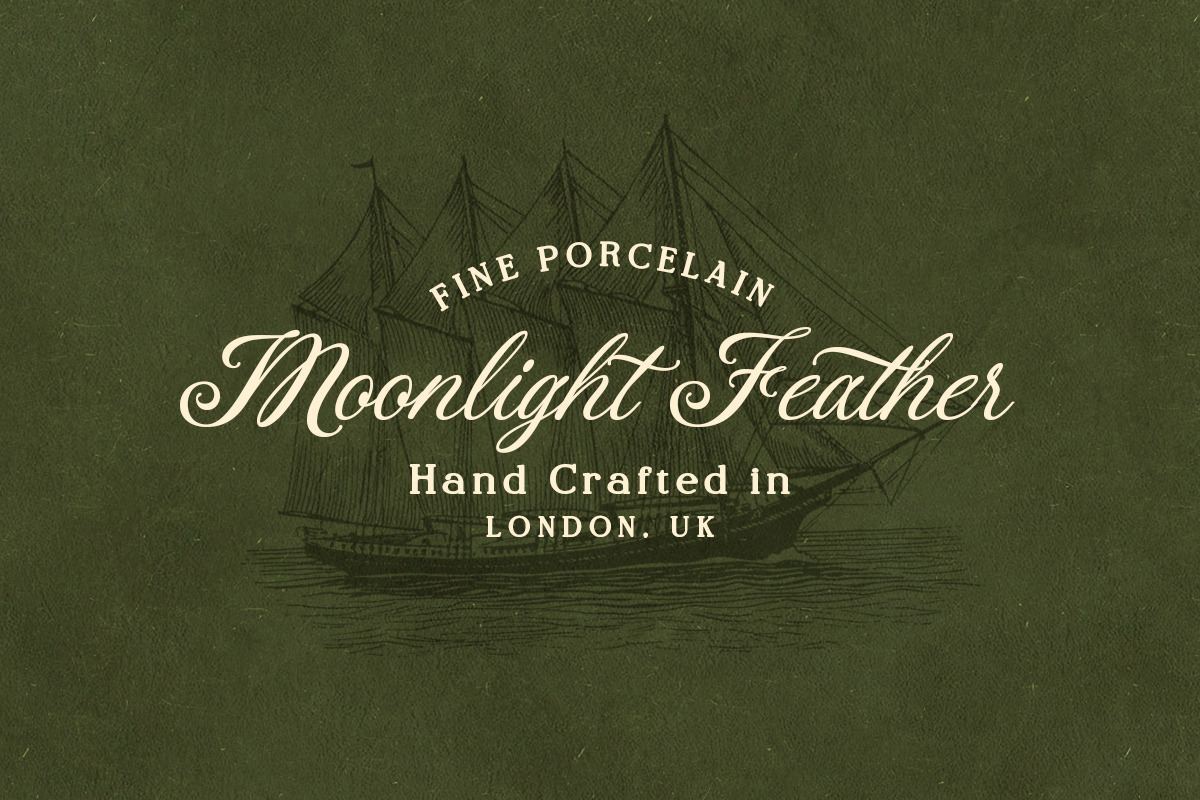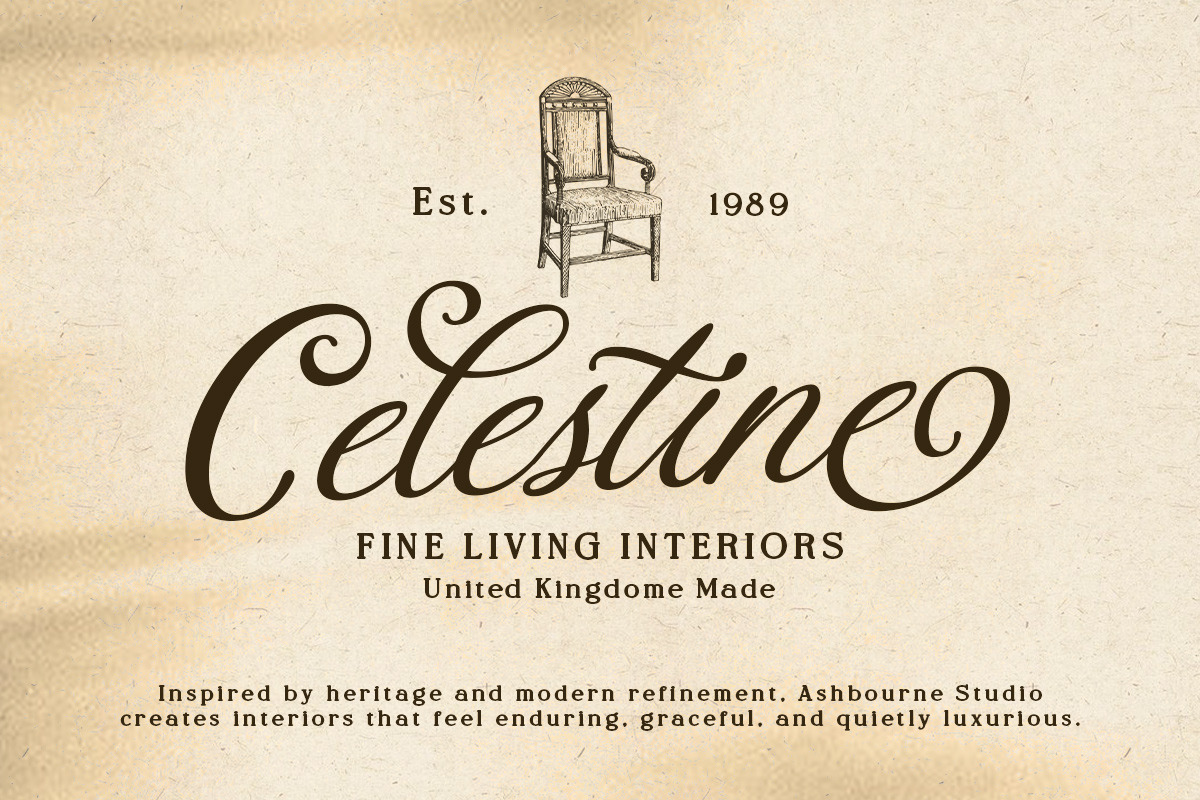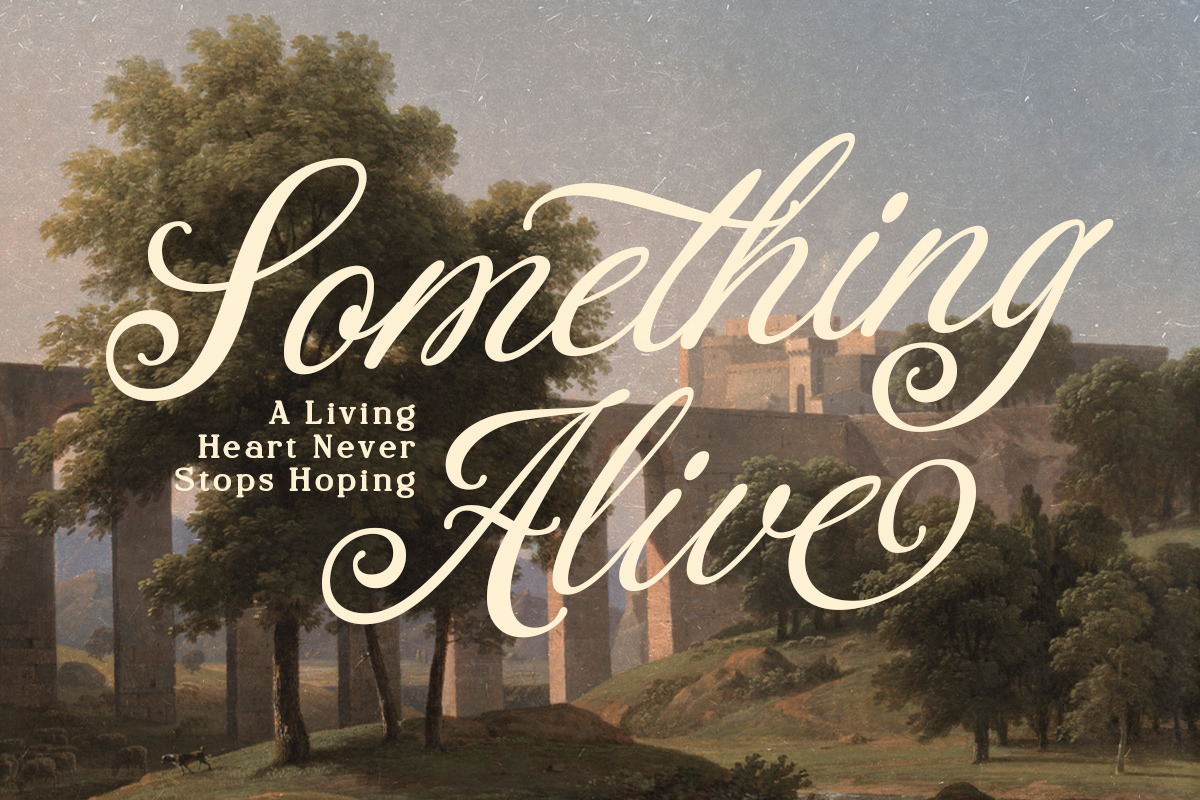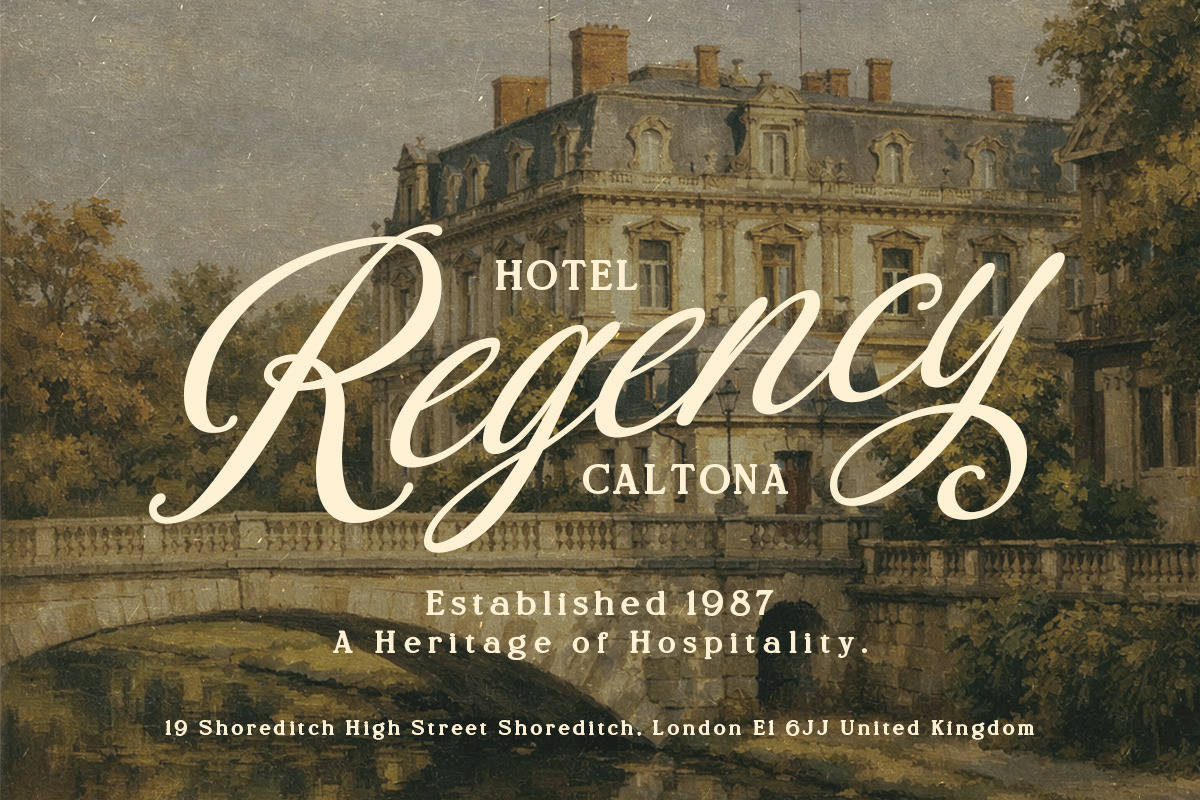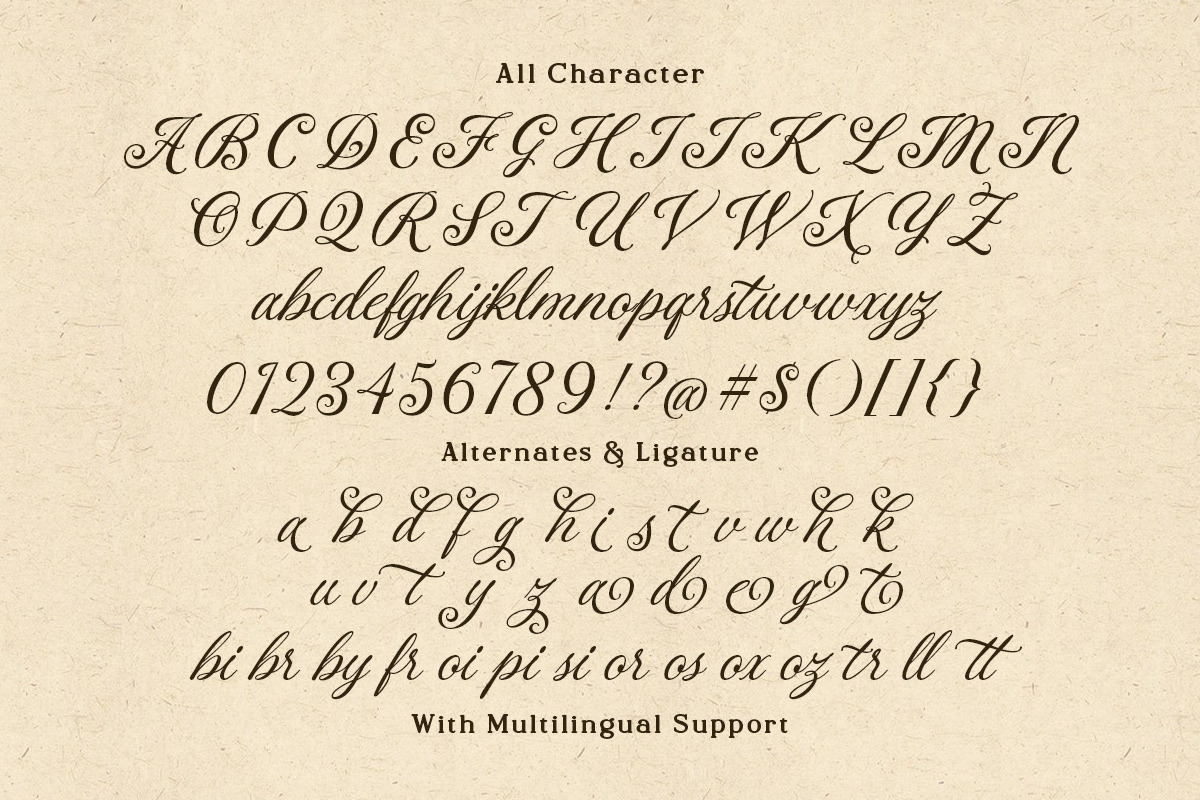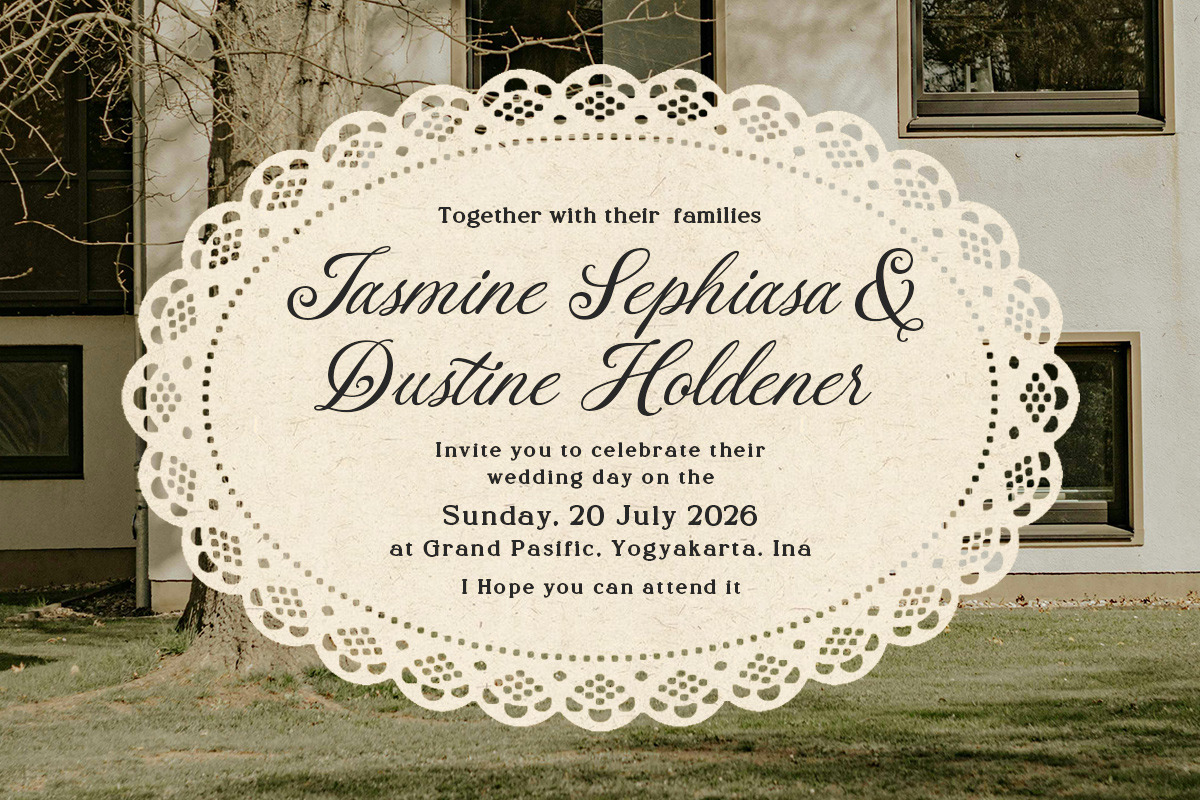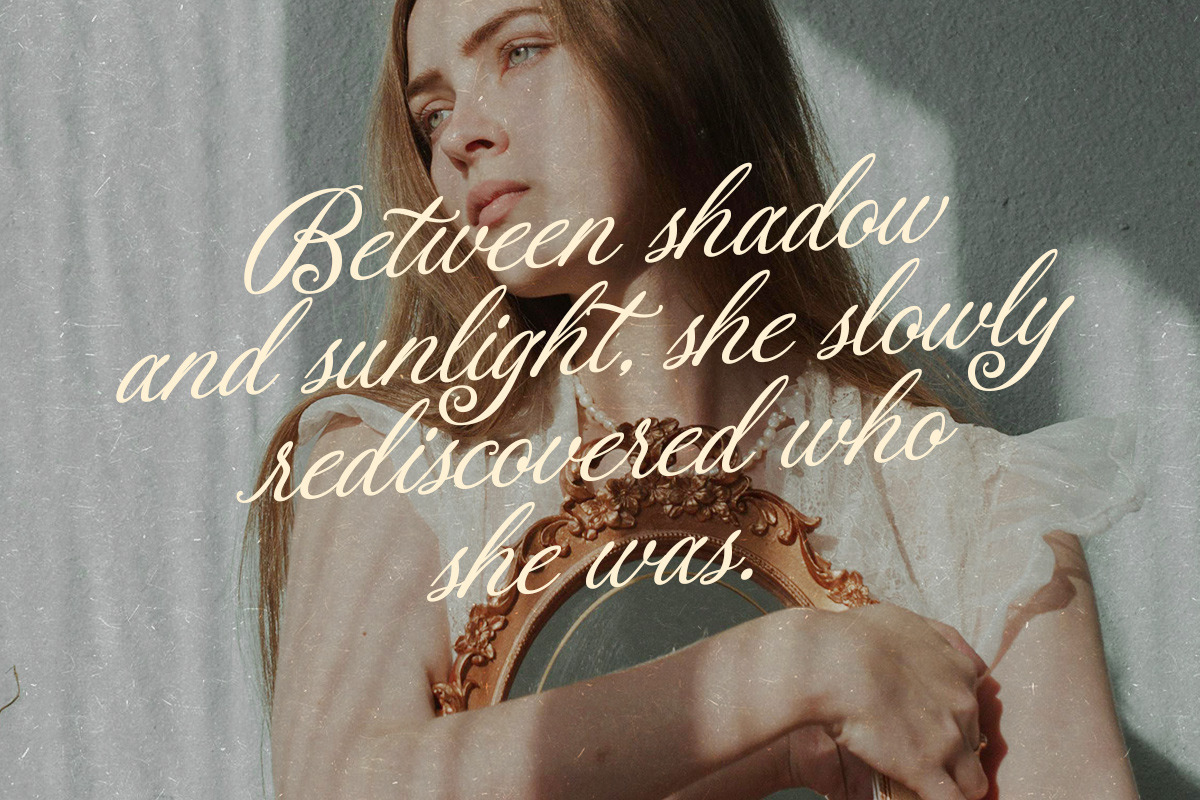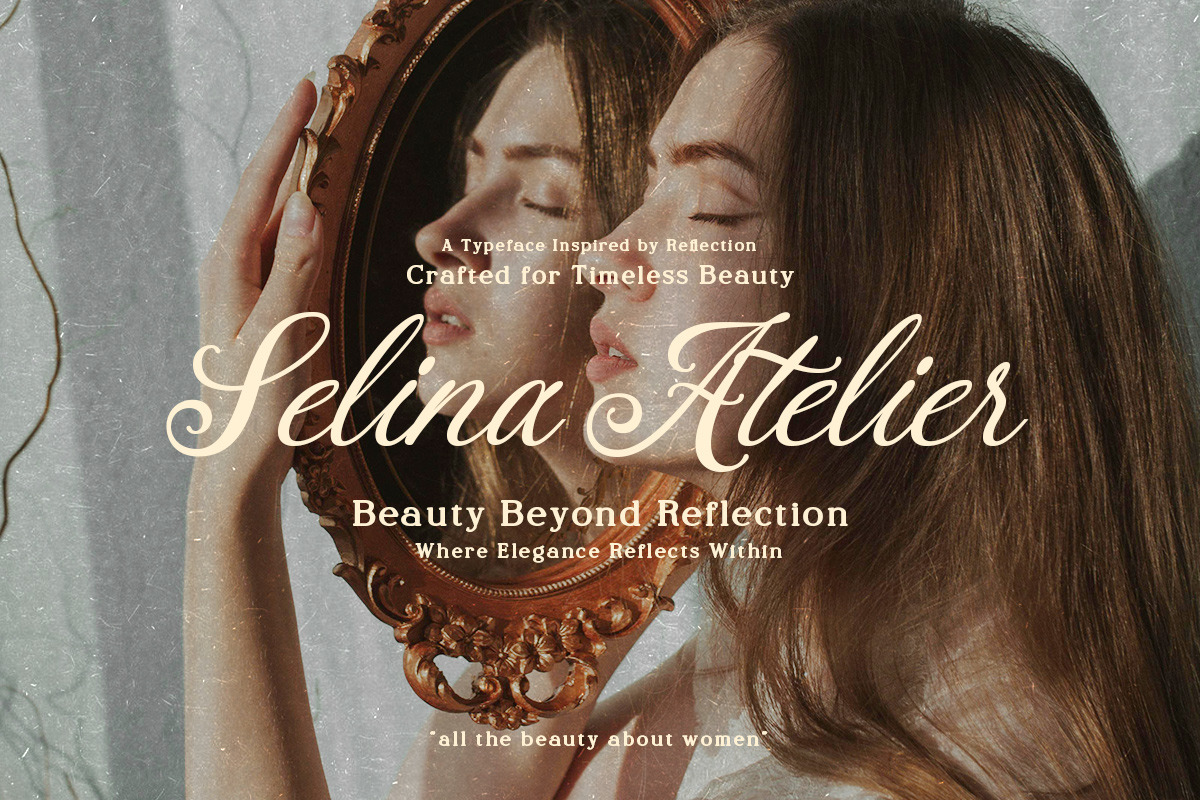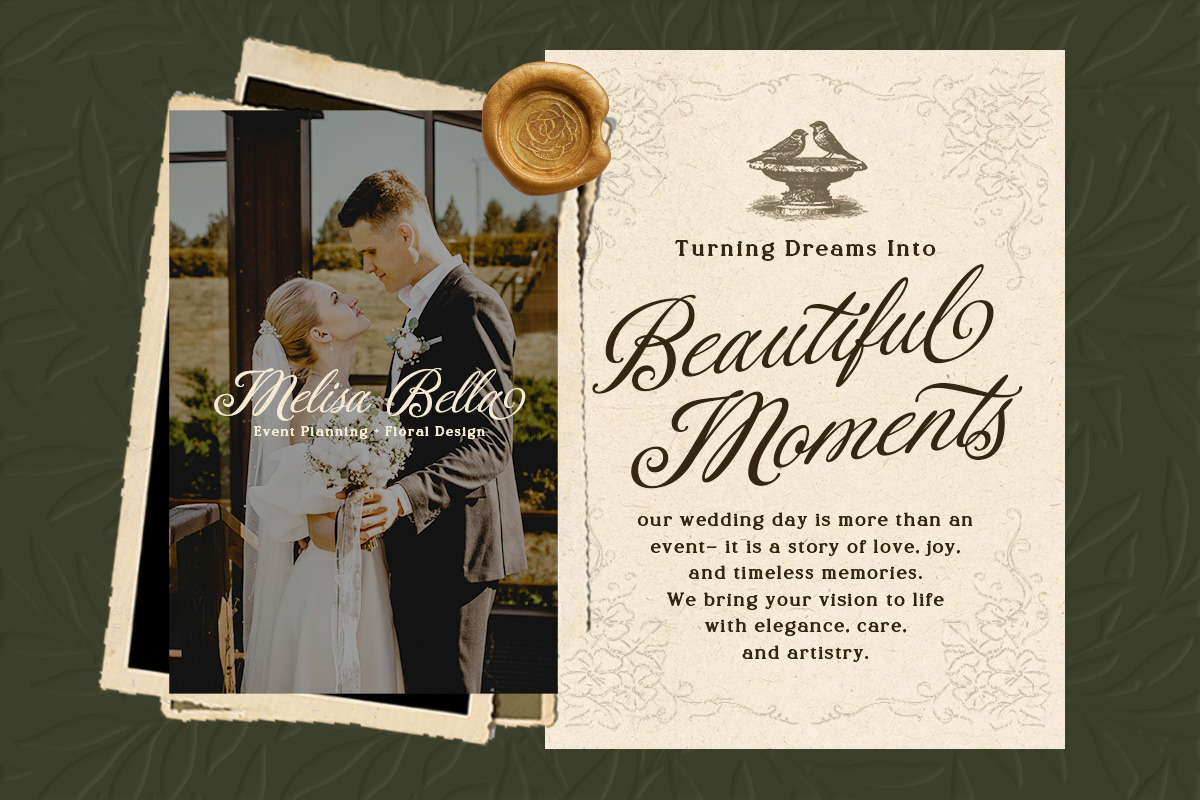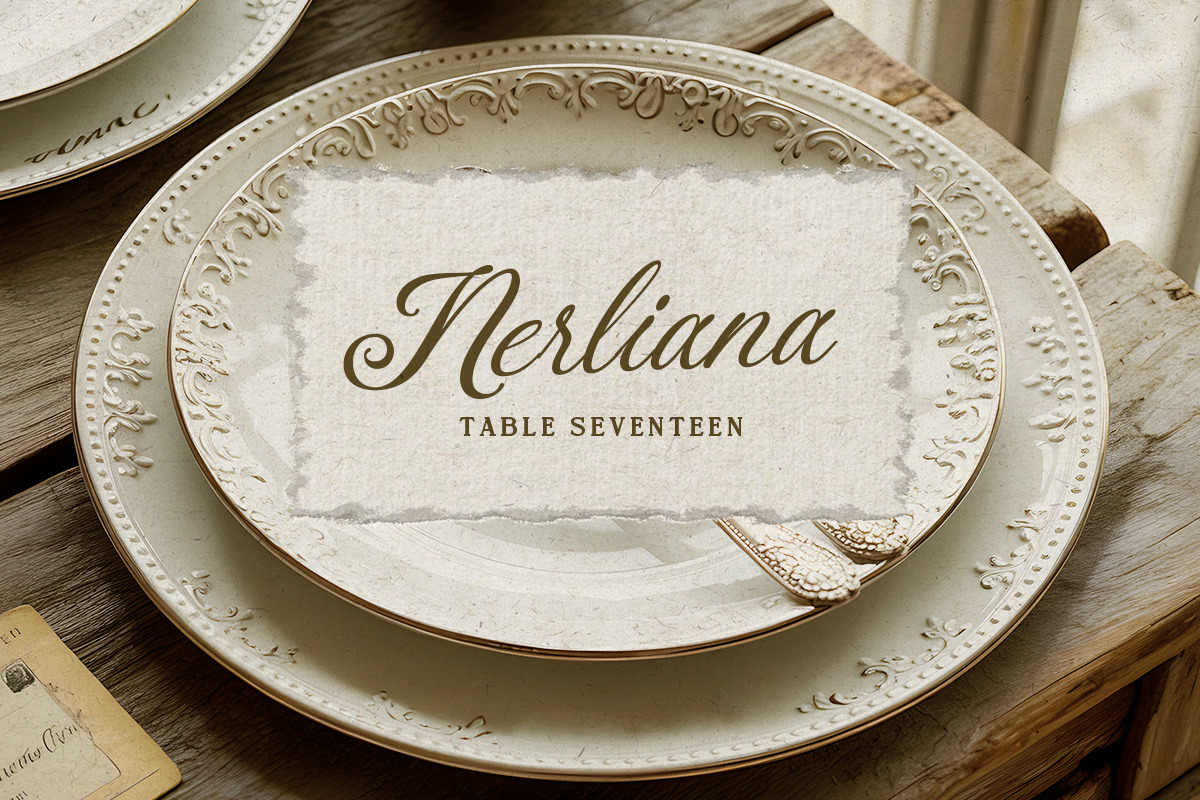
MCO - Montelise Darling
Elevate your designs with the classic charm of Montelise Darling. A meticulously hand-crafted script font that captures the essence of vintage elegance and sophisticated artistry. With its fluid, expressive strokes and timeless silhouette, this typeface is designed to bring a touch of luxury and nostalgia to any project. Whether you're working on high-end branding, exquisite wedding invitations, or nostalgic packaging, Montelise Darling provides the perfect balance of readability and decorative flair. It’s more than just a font; it’s a statement of style.
- Wedding Invitations & Stationery
- Luxury Branding & Logos
- Vintage-themed Posters & Editorial
- Greeting Cards & Social Media Quotes
- High-end Product Packaging